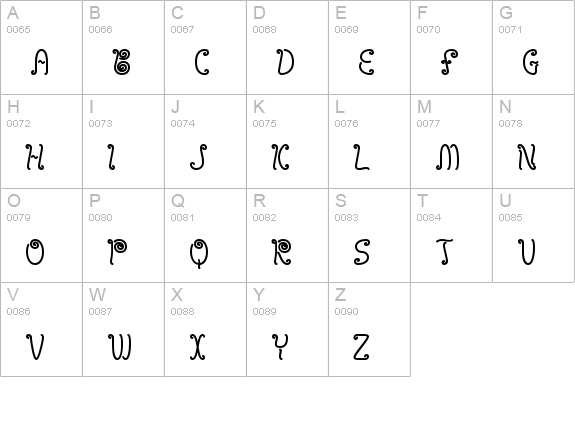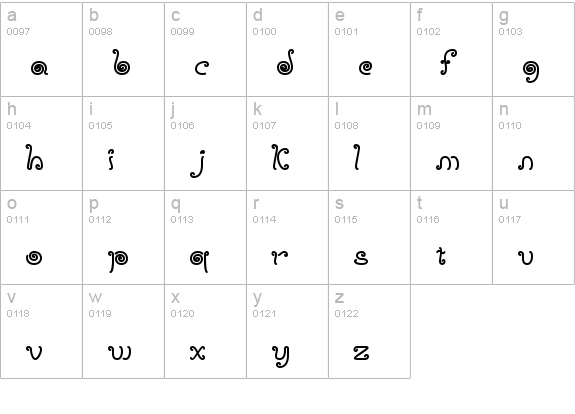
Licorice Strings BRK font is a whimsical and playful typeface that exudes a sense of fun and creativity. Its unique design features twisting and curving letterforms that resemble licorice strings, giving it a lighthearted and charming appeal. This font is perfect for projects that require a touch of whimsy and a dash of personality. The best part about Licorice Strings BRK font is that it is completely free to download at FontsMarket.com. Whether you're working on a party invitation, a children's book, or a playful branding project, this font will add a fun and festive touch to your designs. Embrace the playful spirit of Licorice Strings BRK font and let your creativity run wild!